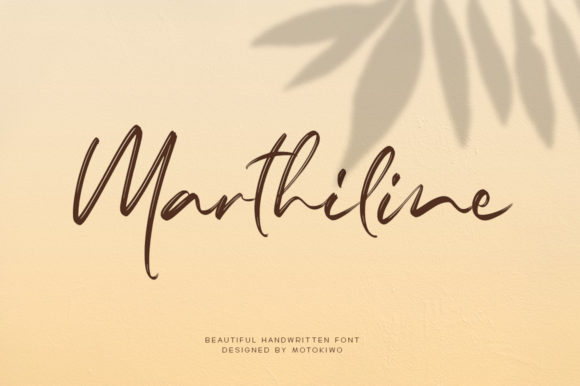
Unleash the allure of Marthiline's distinctive script, a symphony of elegance and charm meticulously designed by motokiwo. With its captivating curves and sweeping strokes, Marthiline transforms your creative visions into breathtaking realities.
As you embark on your creative journey, let Marthiline guide you with its captivating allure. Its delicate charm adds a touch of romance to any project, making it the perfect companion for invitations, cards, and heartfelt messages. Elevate your designs with Marthiline's exquisite beauty and create masterpieces that resonate with emotion.
Marthiline isn't just a font; it's an extension of your artistic expression. Its versatility knows no bounds, adapting seamlessly to logos, branding, and social media posts. Let Marthiline tell your story in a way that captivates your audience, leaving an indelible mark on their hearts and minds.
With Marthiline, you're not just downloading a font; you're embracing an artistic legacy. Its enchanting aura will transform your creative endeavors into timeless works of art. Experience the magic of Marthiline and unlock the boundless possibilities of your imagination.